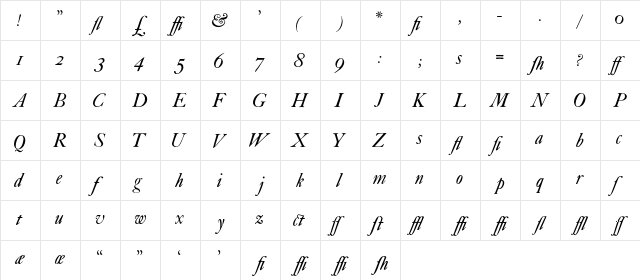
CaslonBookItalicWF Regular
Design Context for CaslonBookItalicWF Typeface
CaslonBookItalicWF takes a measured approach to typography — its balanced proportions and neutral character make it a reliable workhorse for both digital and print work. The slanted form adds forward momentum and visual energy.